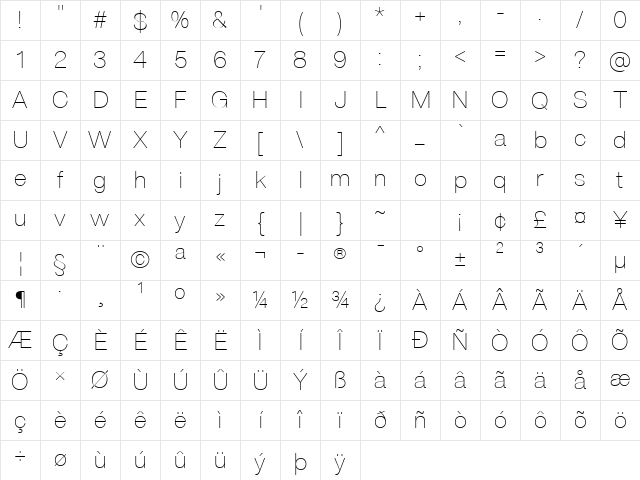
ExtraLight Regular
Foundry: Monotype Imaging Inc.
Designer: Max Miedinger, Charles Nix, Monotype Studio, Jan Hendrik Weber
ExtraLight Family
Design Context for ExtraLight
ExtraLight is a composed and adaptable typeface that performs quietly and consistently across a wide range of design contexts. Its slender proportions lend an understated elegance to any composition.